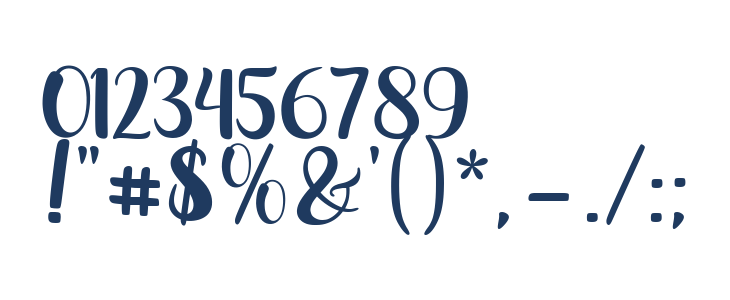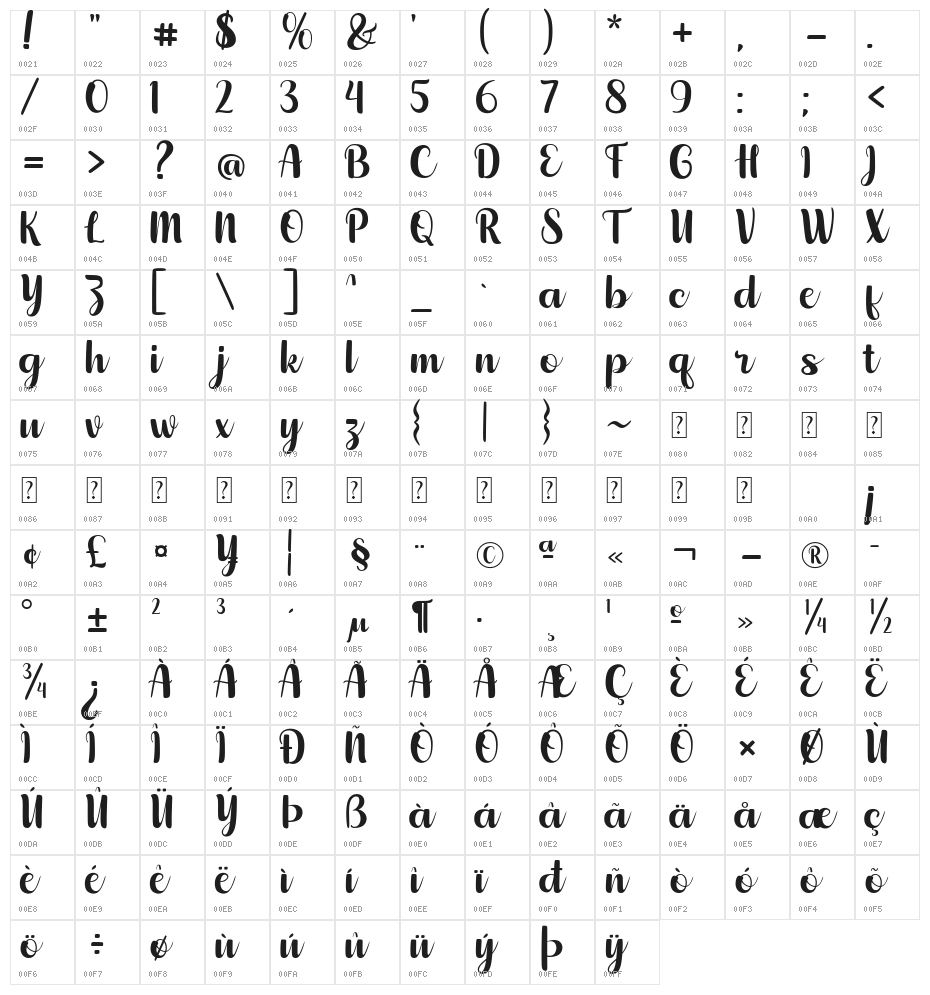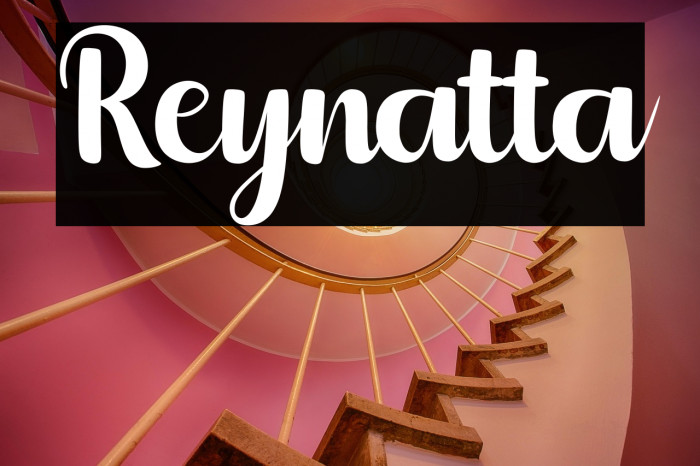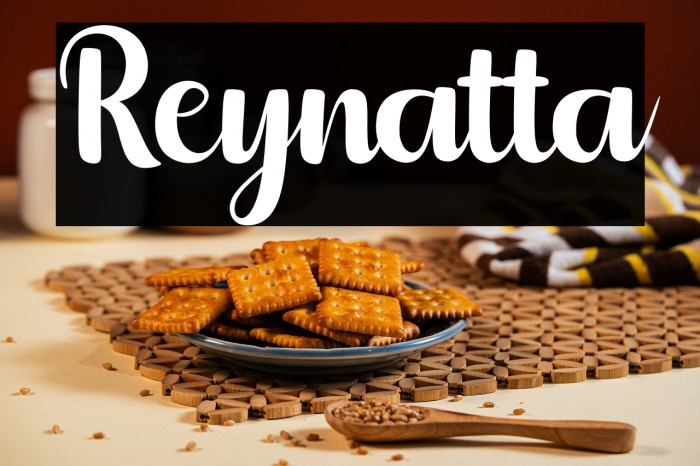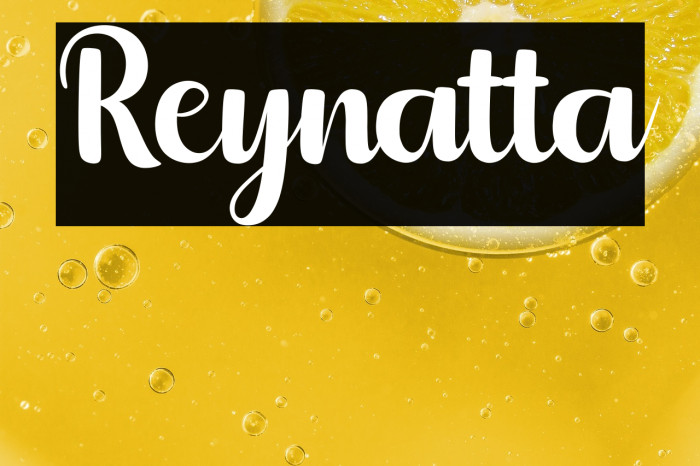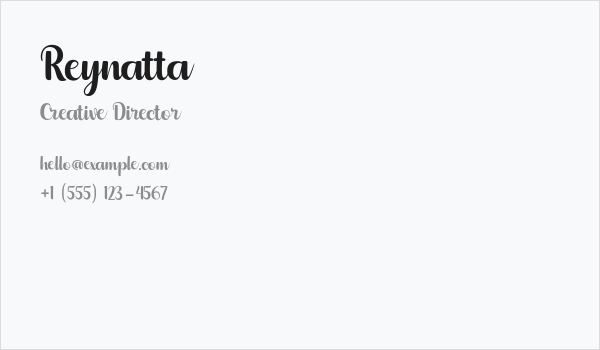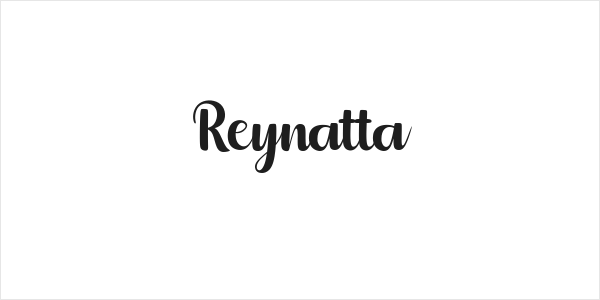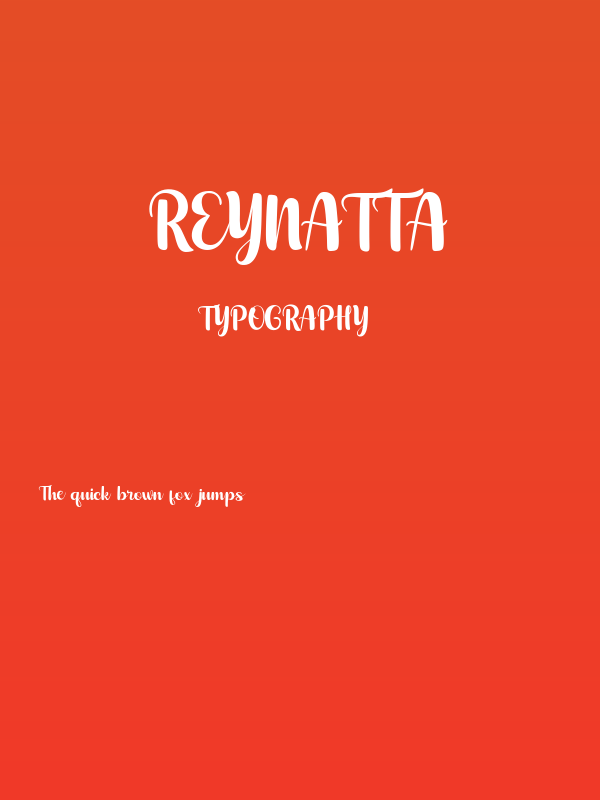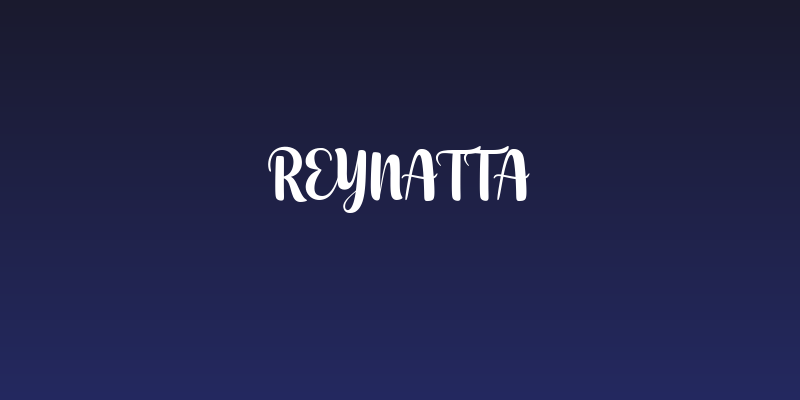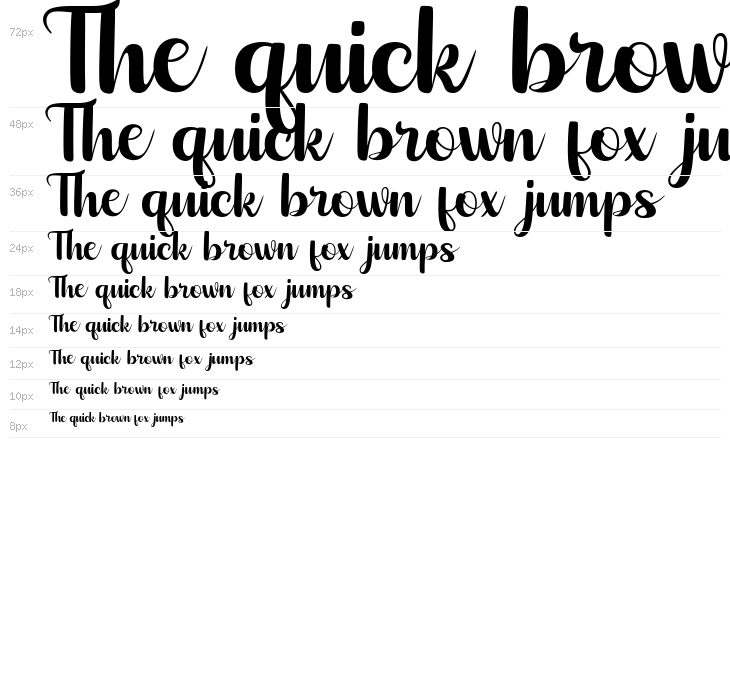
Reynatta Font
Reynatta Description
This font features a bold, flowing script style with a playful and elegant appearance. The characters are interconnected with smooth, rounded strokes and a consistent thickness throughout. The uppercase letters are slightly taller and more pronounced, while the lowercase letters maintain a cohesive flow with gentle curves. The numerals are bold and clear, matching the overall aesthetic of the font. Special characters are well-integrated, maintaining the same fluid style. This font exudes a sense of creativity and warmth, making it suitable for various design applications.